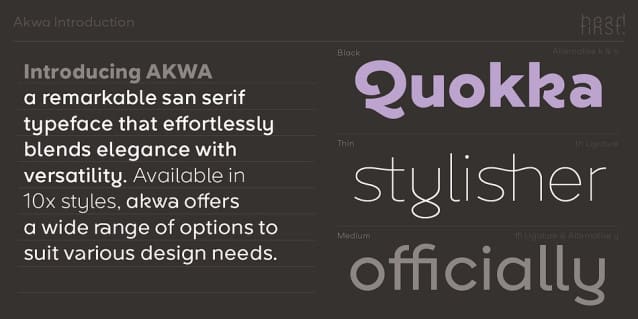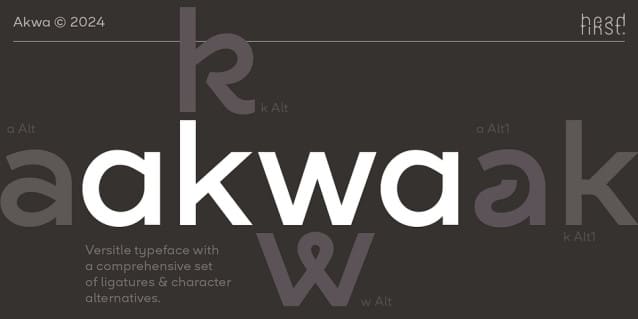
Akwa Font Family
Akwa Font Family, a remarkable san-serif typeface that effortlessly blends elegance with versatility. Drawing inspiration from timeless geometric shapes with low-contrast liner forms, Akwa exudes a sense of modern sophistication that will elevate your designs with its refined functionality, beauty and flexibility.